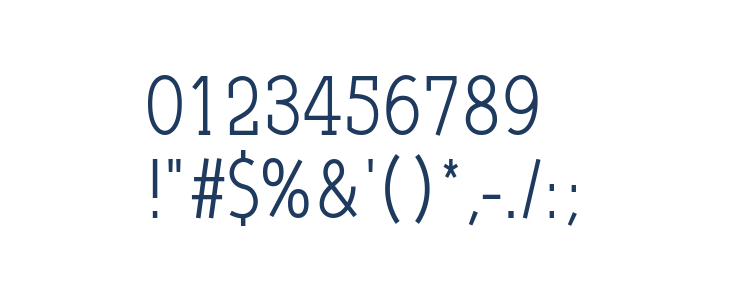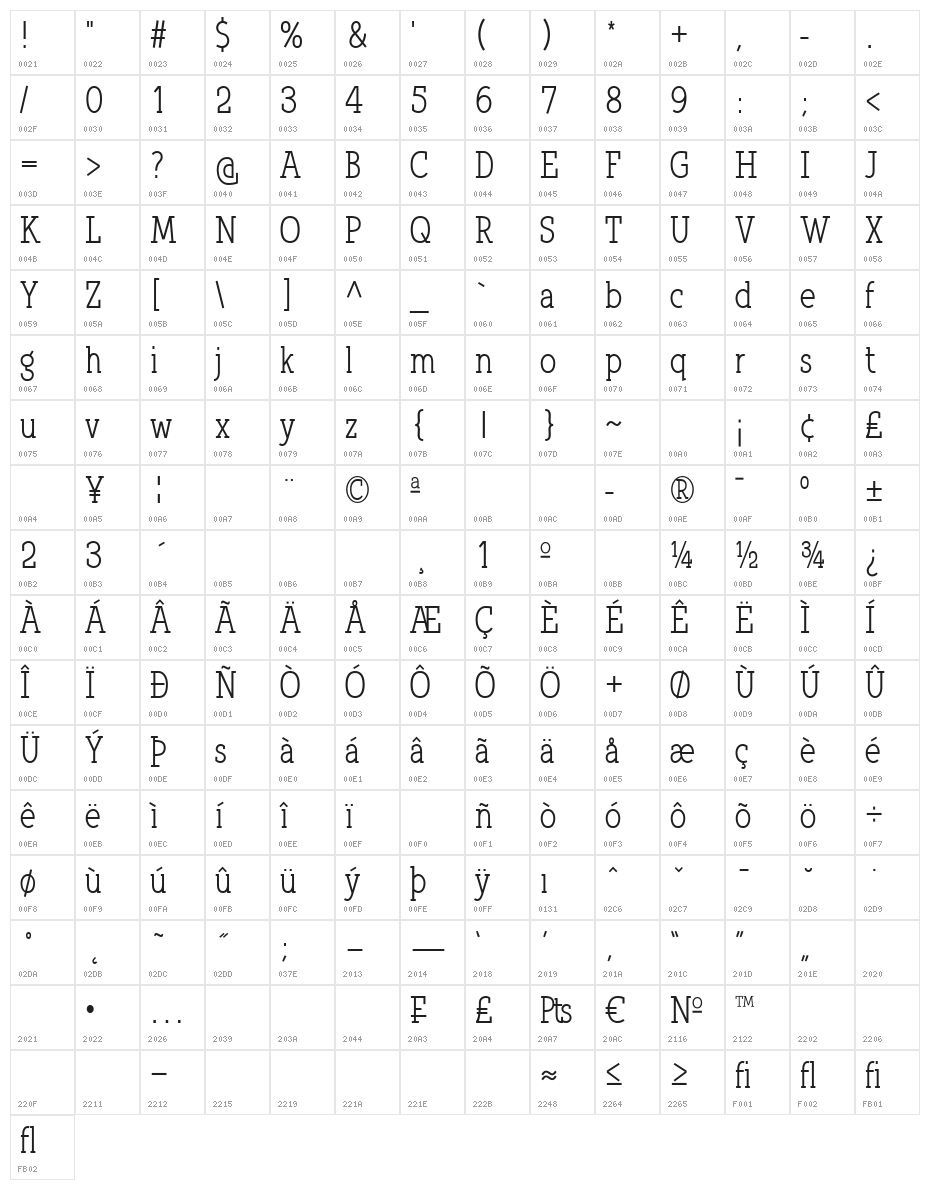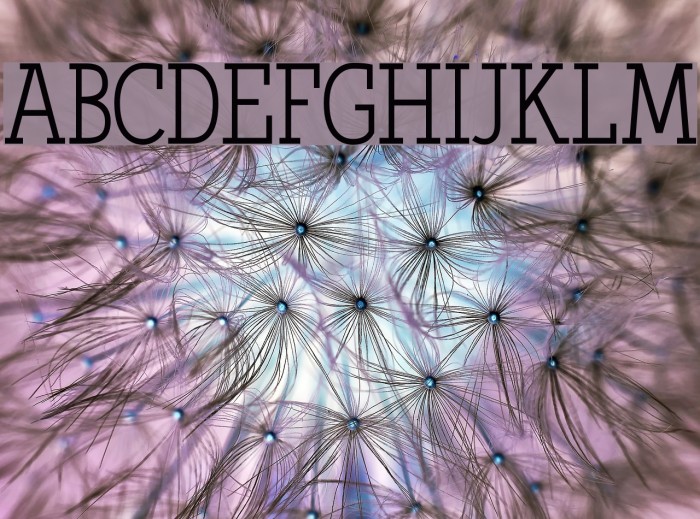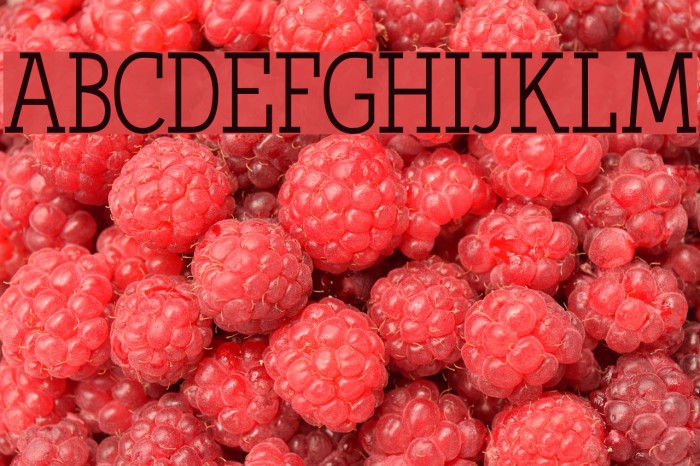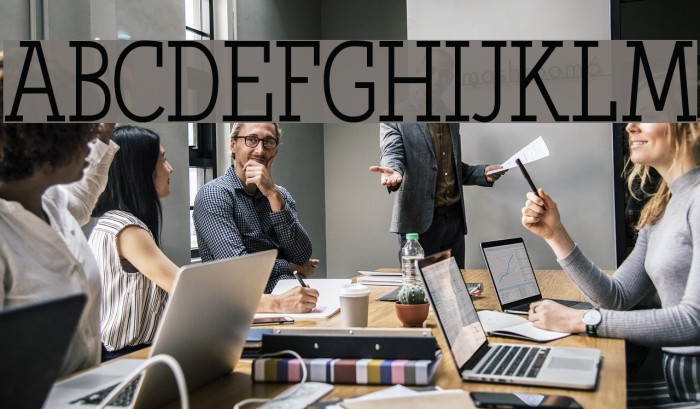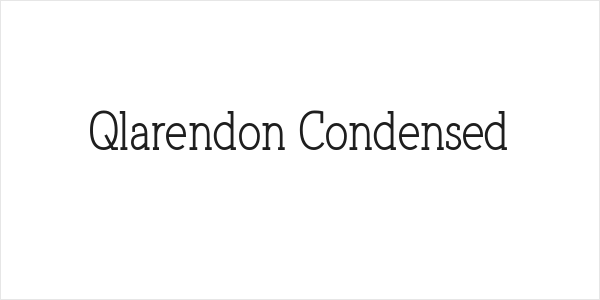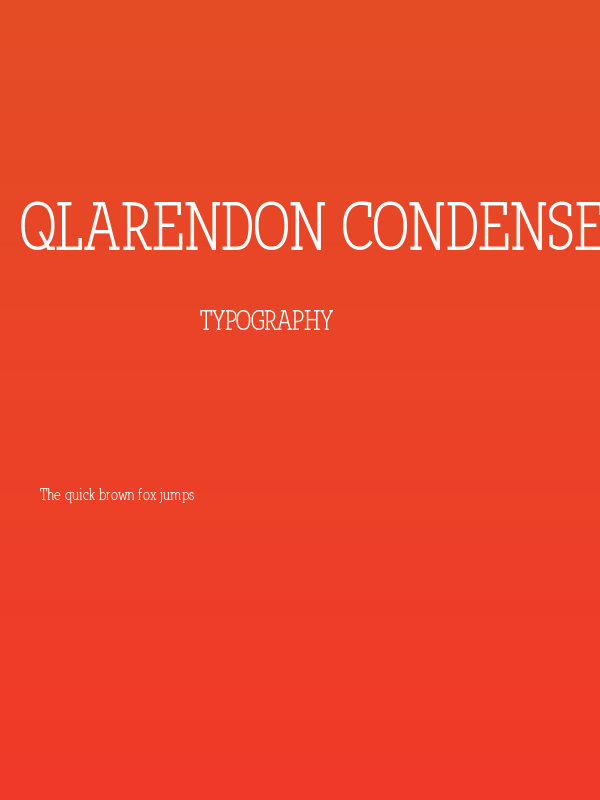
Qlarendon Condensed Font
Qlarendon Condensed Description
This font features a classic slab serif design with a condensed structure, offering a modern twist on traditional serif styles. The characters are well-defined with a uniform stroke width, providing a clean and professional appearance. The uppercase letters are bold and commanding, while the lowercase letters maintain a consistent height, ensuring readability. The numerals are clear and distinct, making them suitable for both text and numerical data. Special characters are elegantly integrated, maintaining the overall aesthetic of the font. This typeface is versatile, suitable for a variety of design projects that require a touch of sophistication and clarity.
| Proposed Projects | Ideal for editorial design, branding projects, packaging, and signage where a professional and clear typeface is needed. |